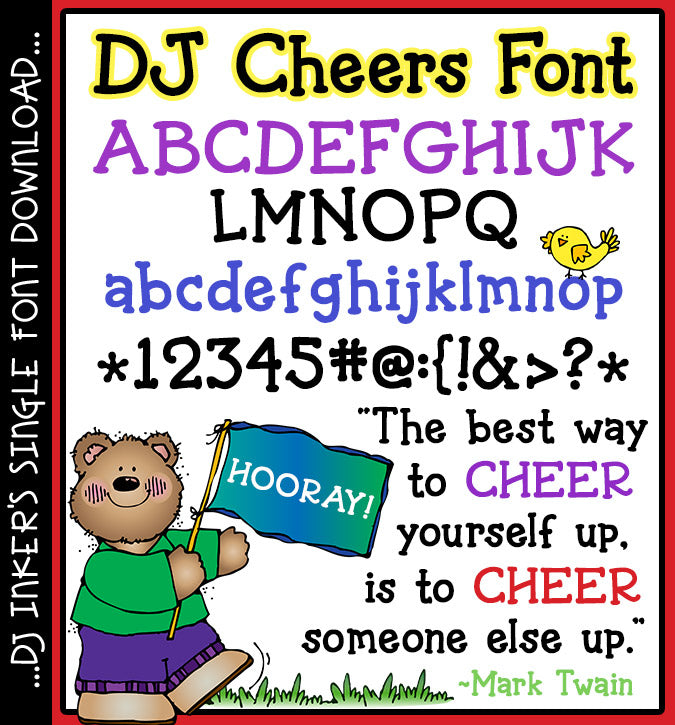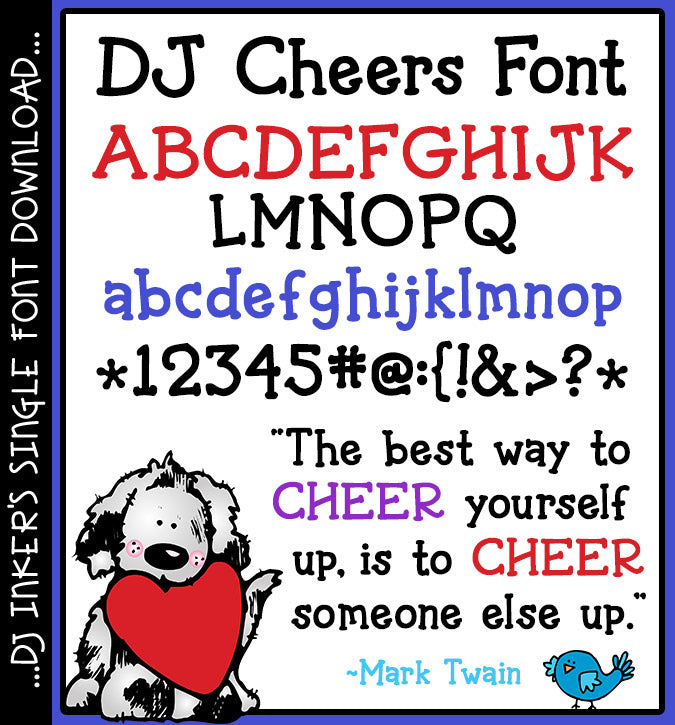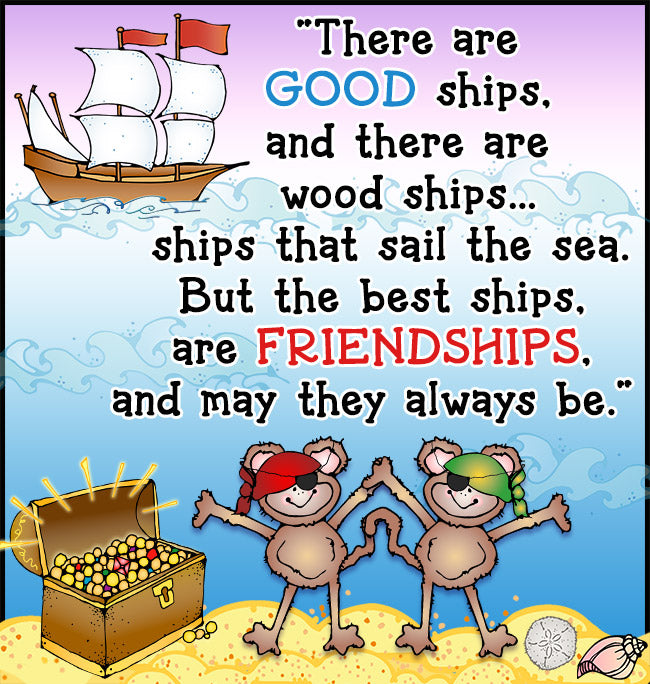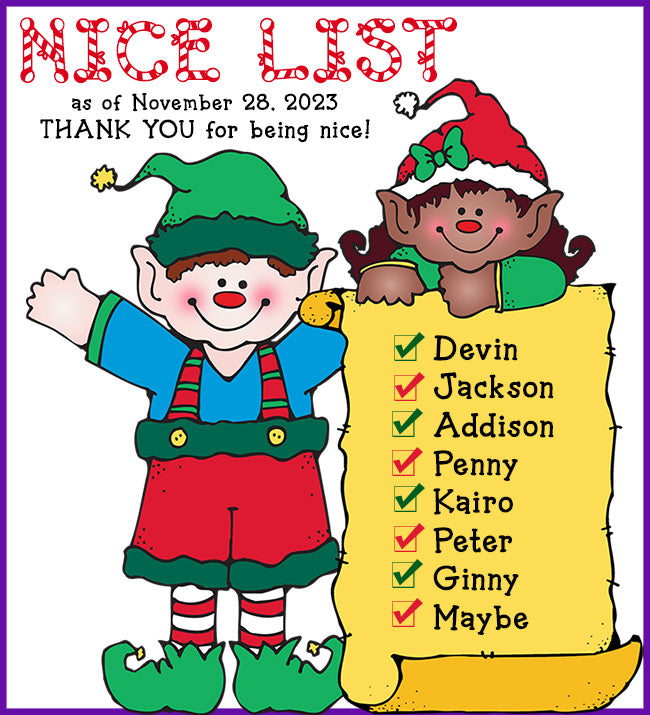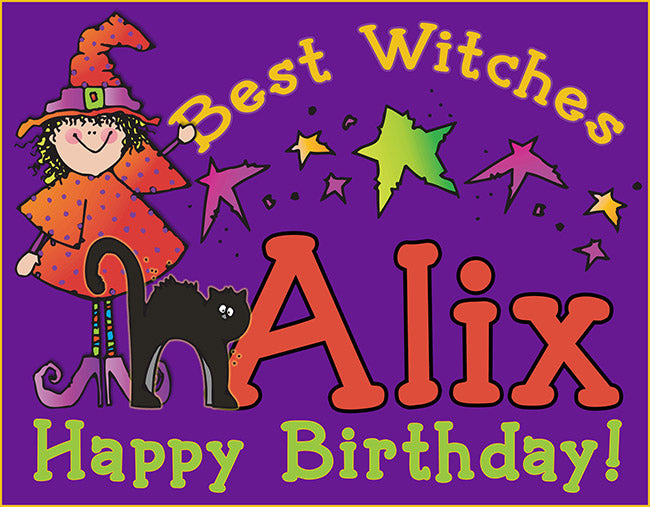
DJ Cheers Font Download
CHEERS to making your projects stand out with a good font (from
DJ Inkers)! ;) This bold, whimsical font is full of personality,
but still sophisticated and easy to read. Splendid for teachers and
home crafting, project titles, headlines, posters and easy cut lettering
for your Cricut. Pip pip! Download yours today.